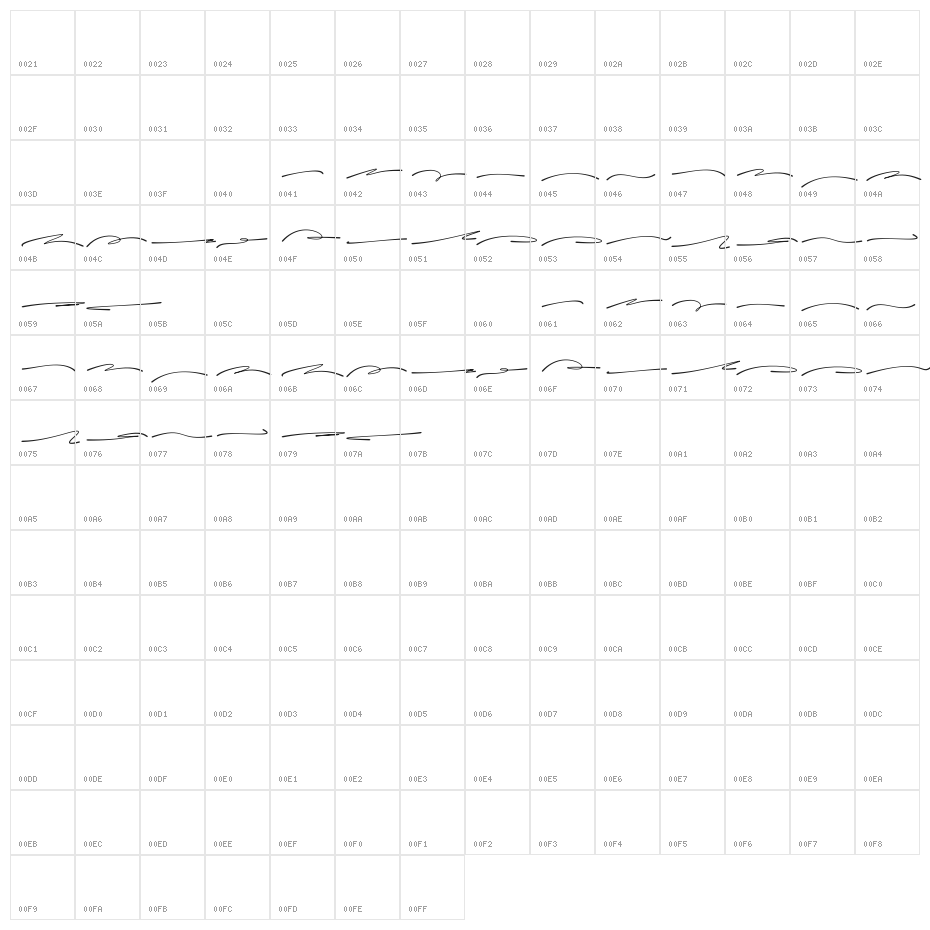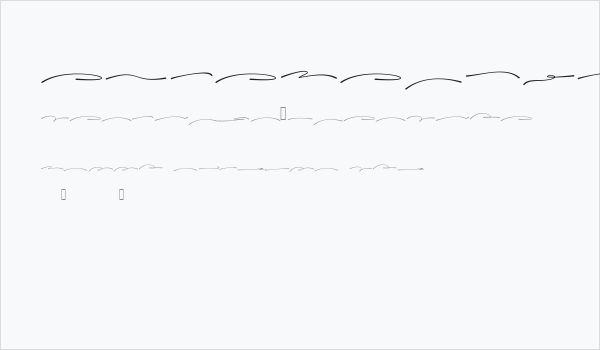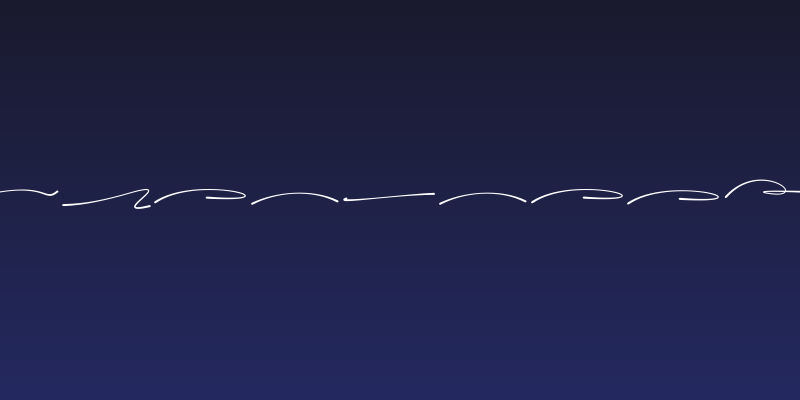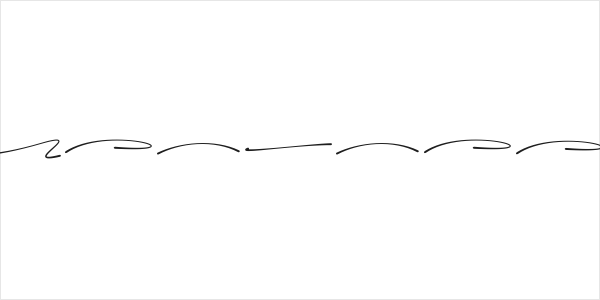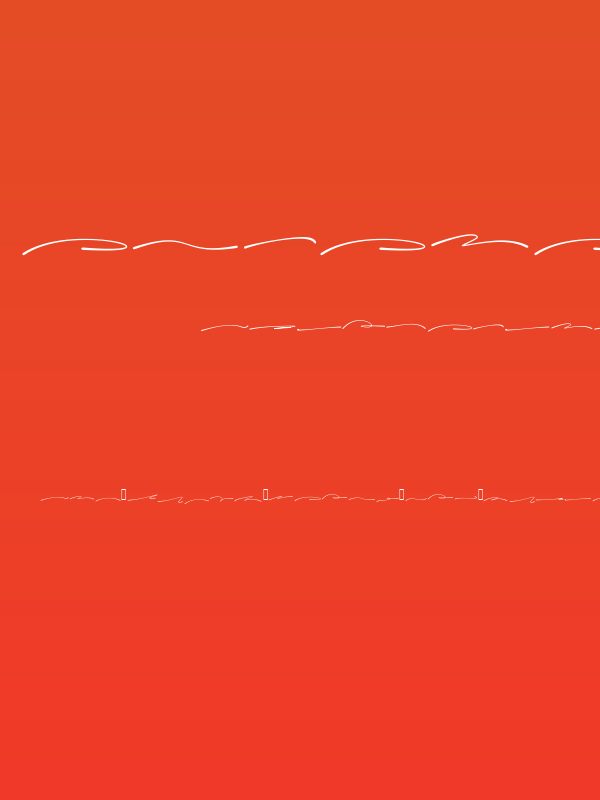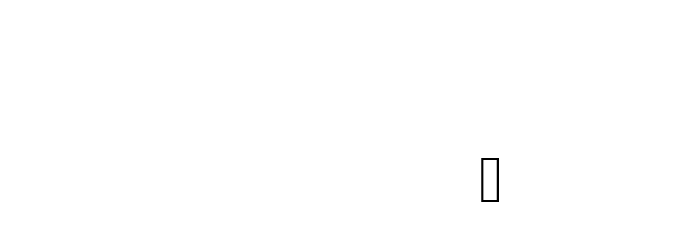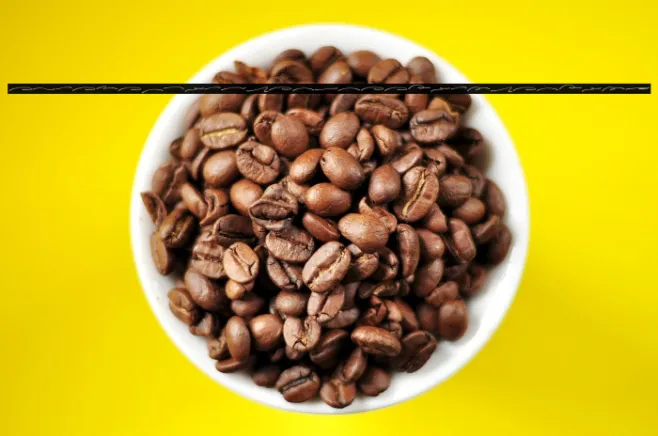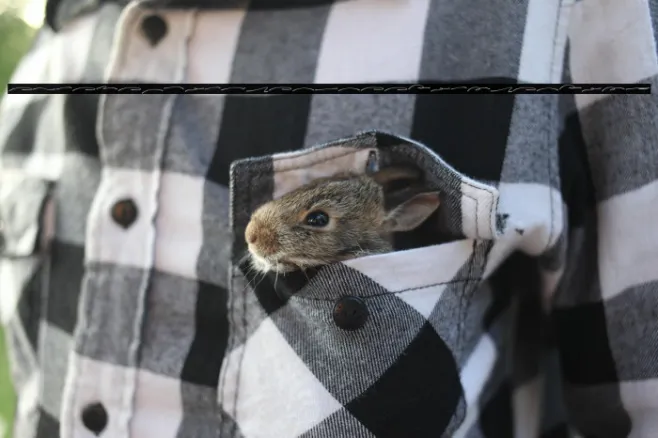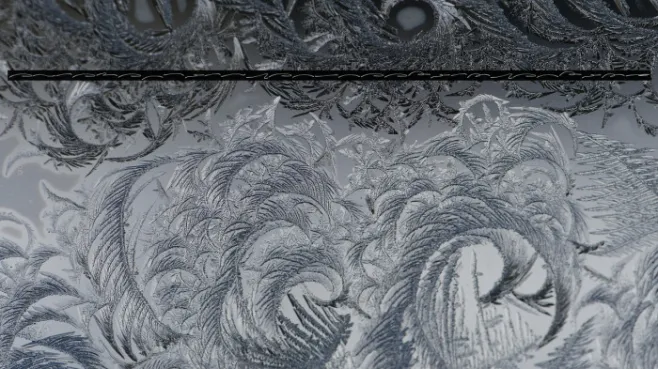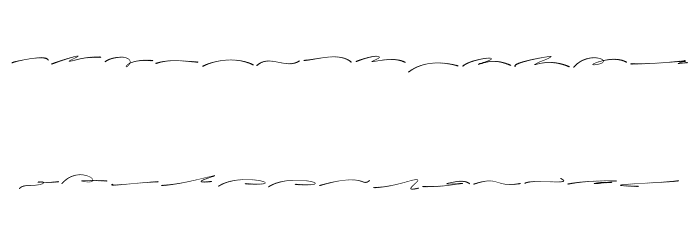
This font features an elegant and flowing script style, reminiscent of a handwritten signature. The characters are connected with smooth, sweeping strokes that give it a sophisticated and personal touch. The design is highly decorative, with each letter exhibiting unique flourishes and swashes that enhance its aesthetic appeal. The font maintains a consistent line weight throughout, contributing to its graceful appearance. It is ideal for projects that require a touch of elegance and personalization, such as invitations, branding, and stationery.
| Use Case | Logos, Invitations, Stationery |
| Proposed Projects | Ideal for wedding invitations, personal branding, elegant stationery, and signature logos. |